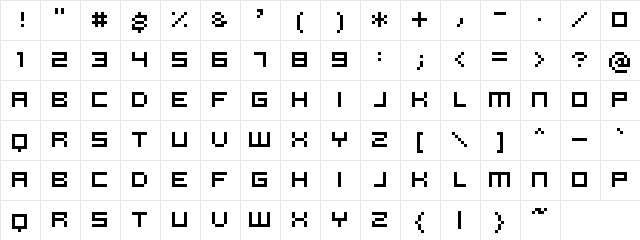
pannetje_10 Regular
Design Context for pannetje_10 Typeface
pannetje_10 takes a measured approach to typography — its balanced proportions and neutral character make it a reliable workhorse for both digital and print work.